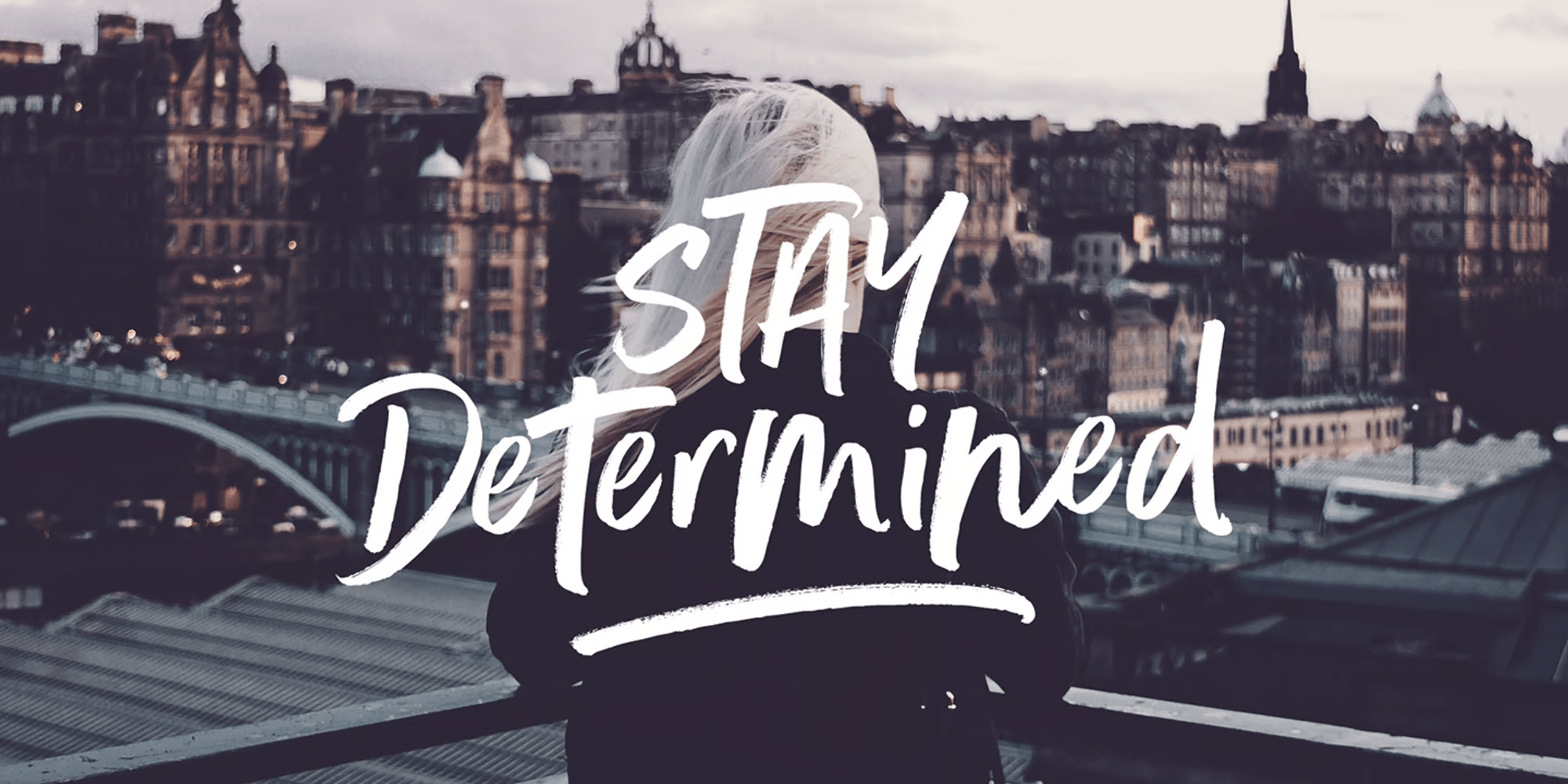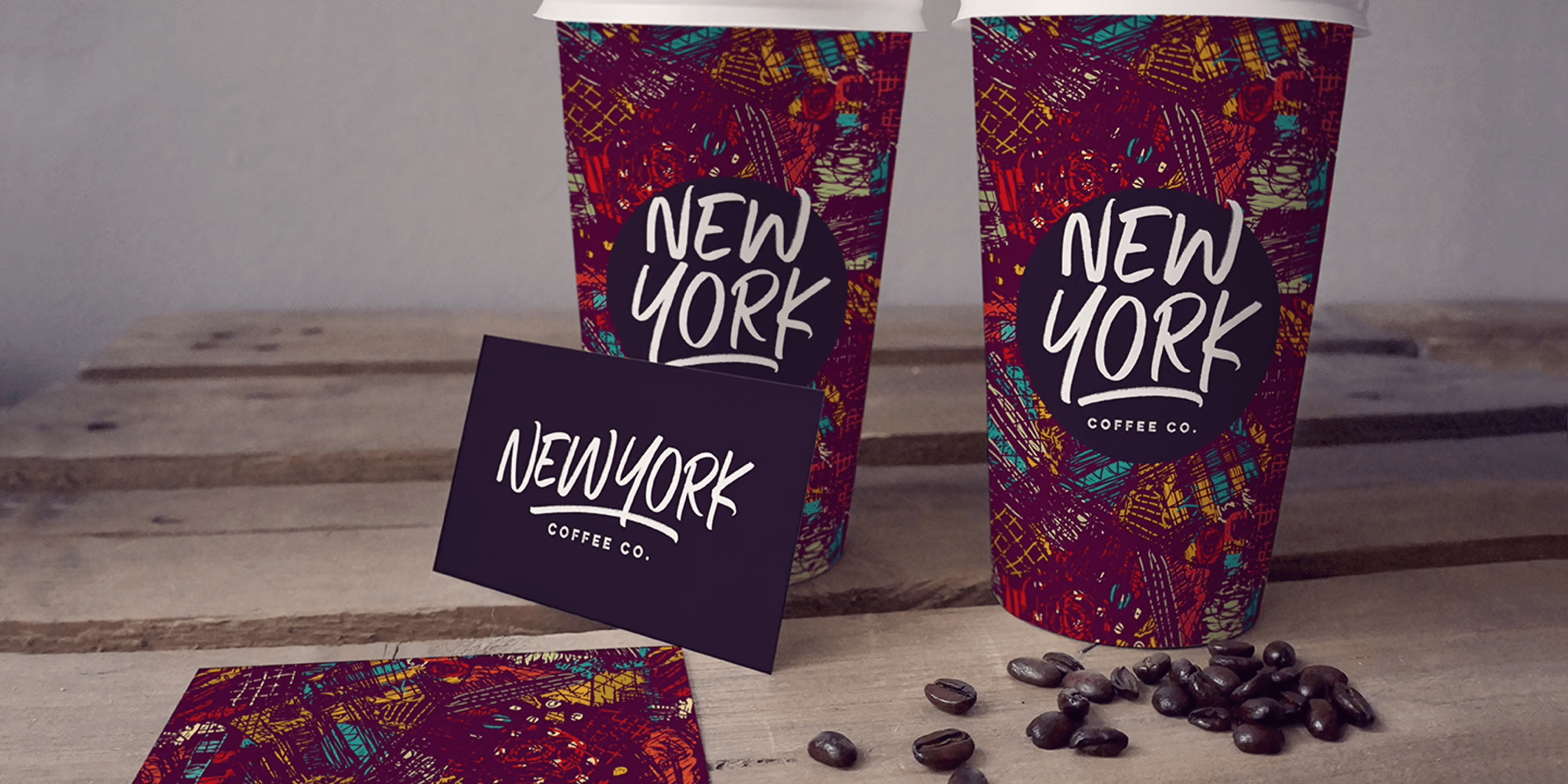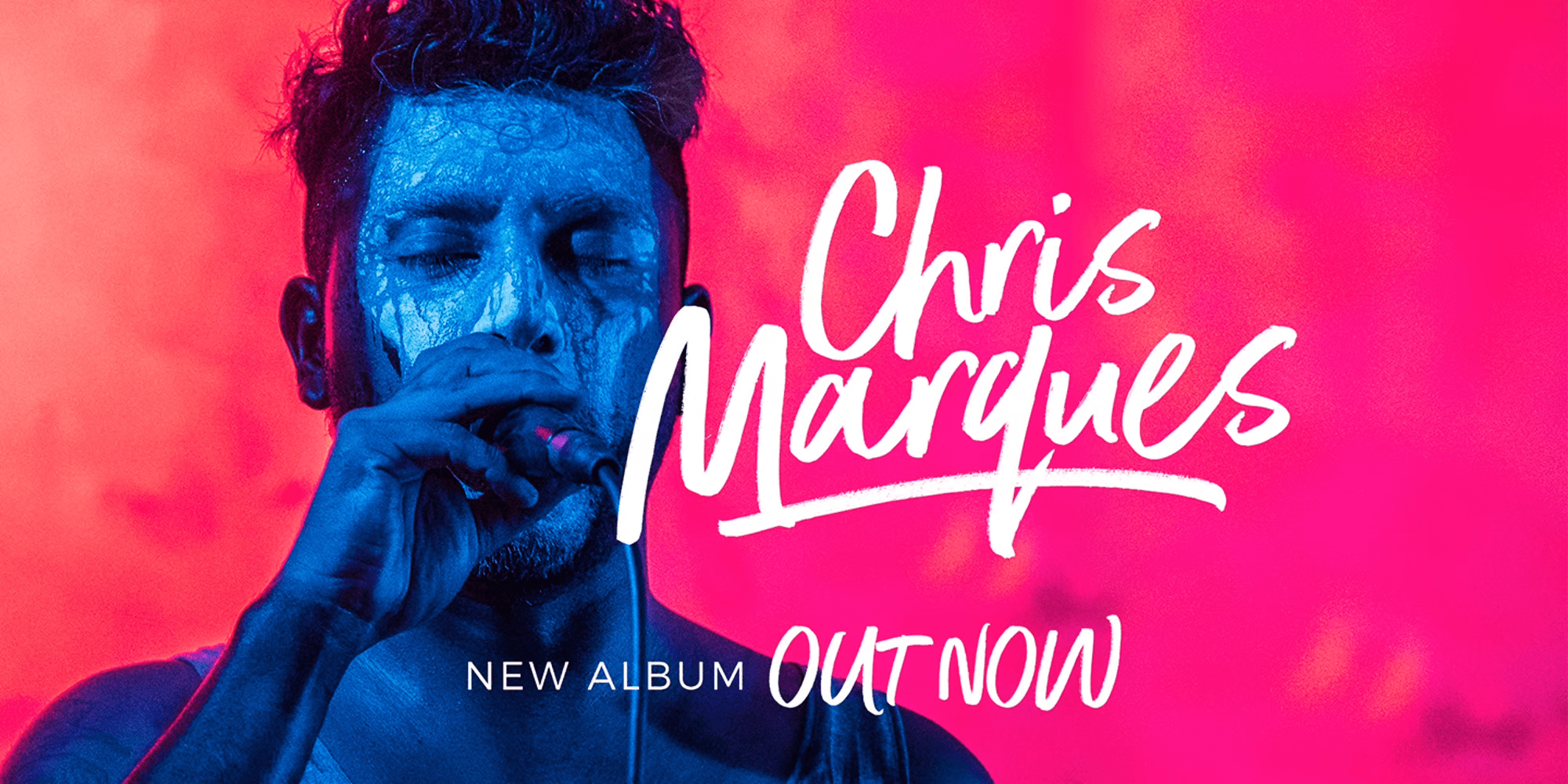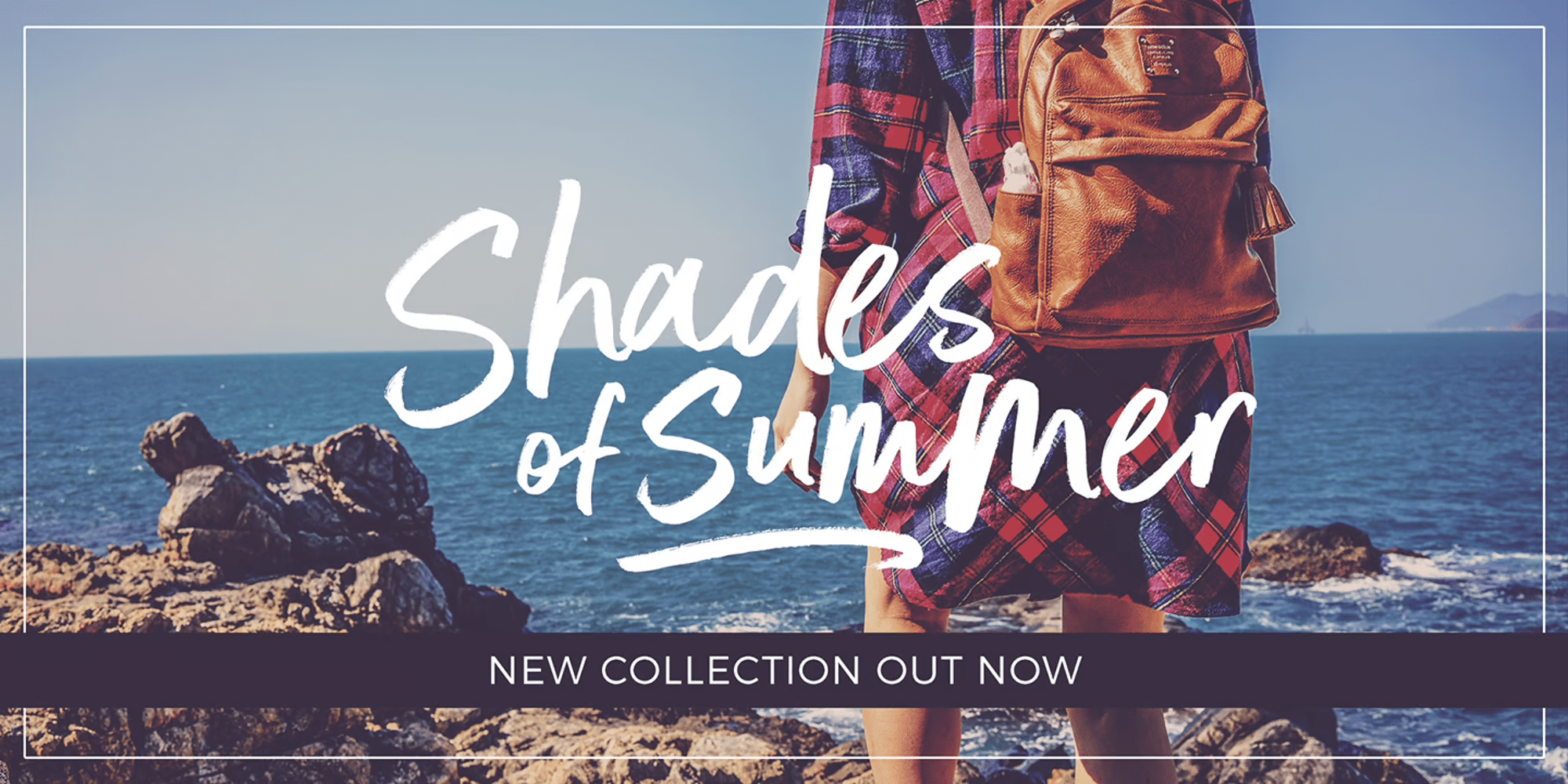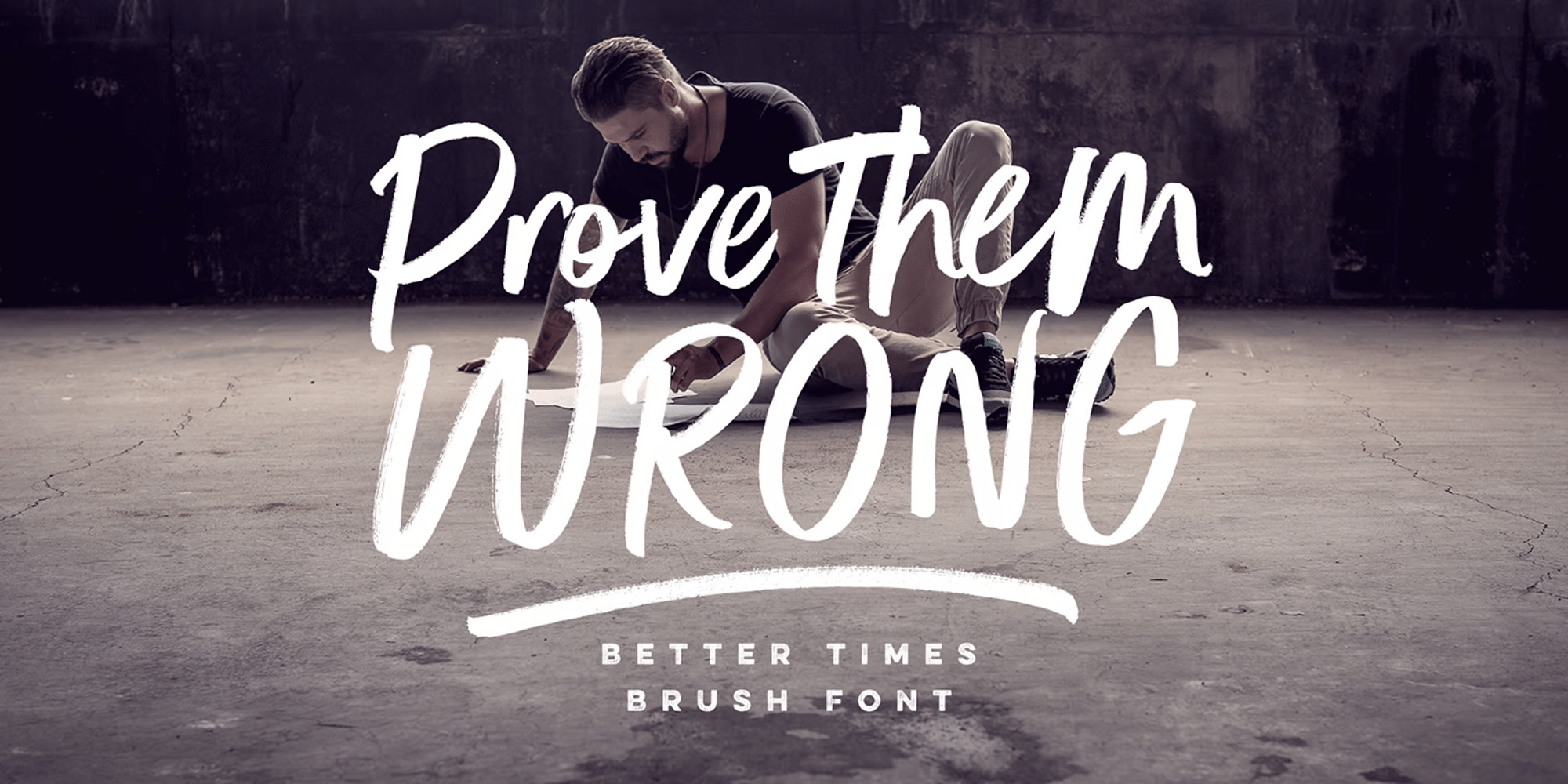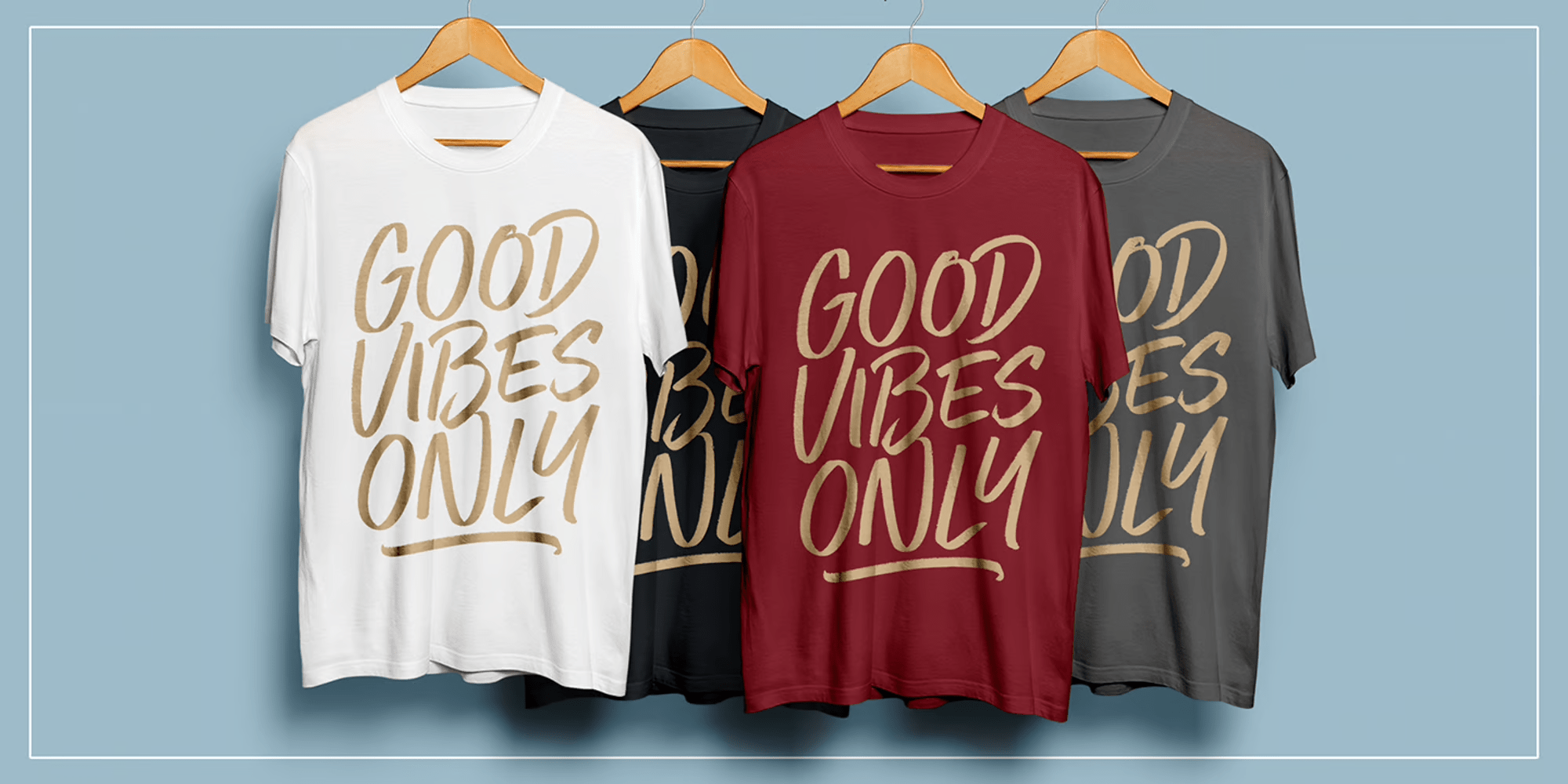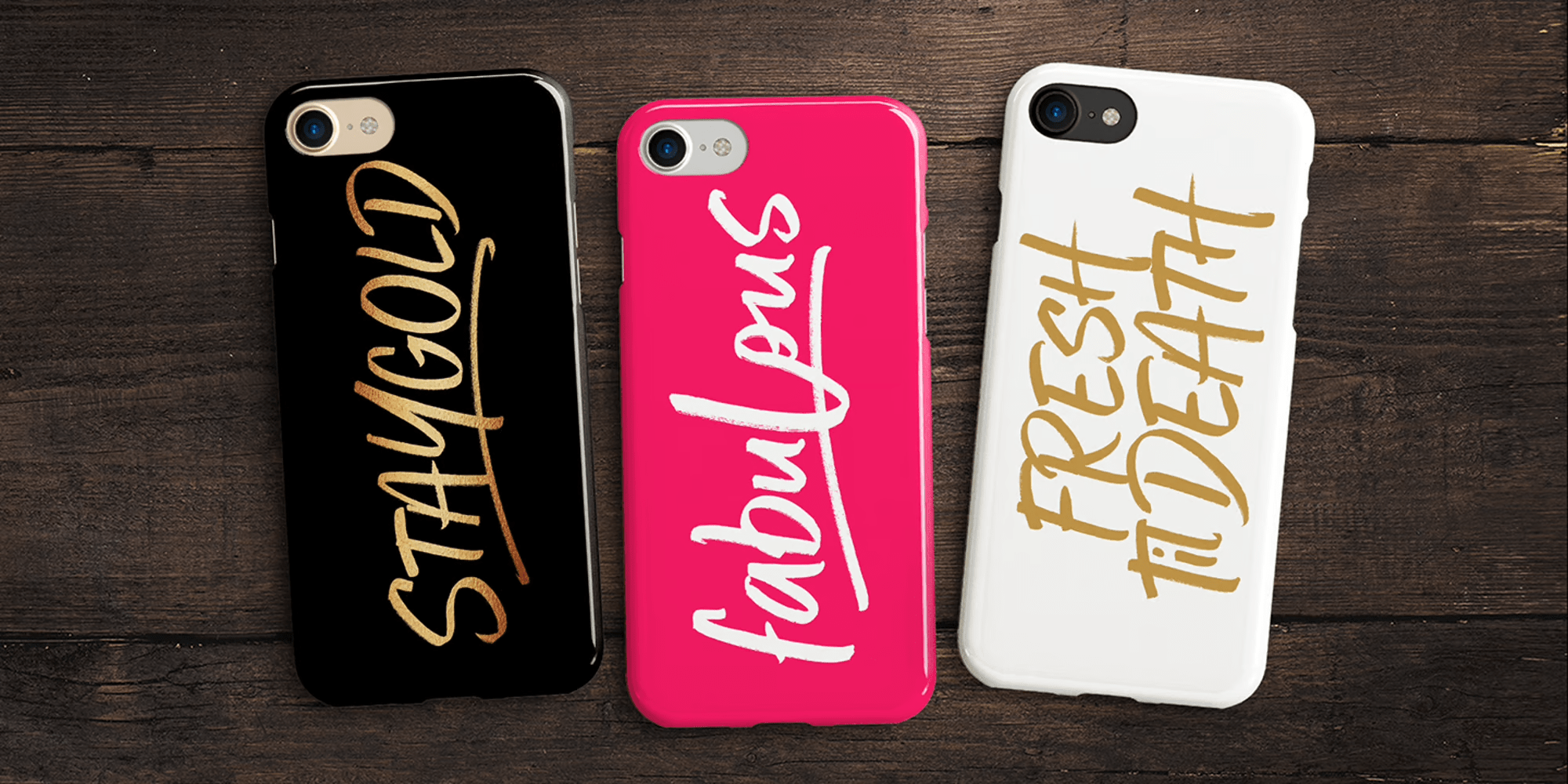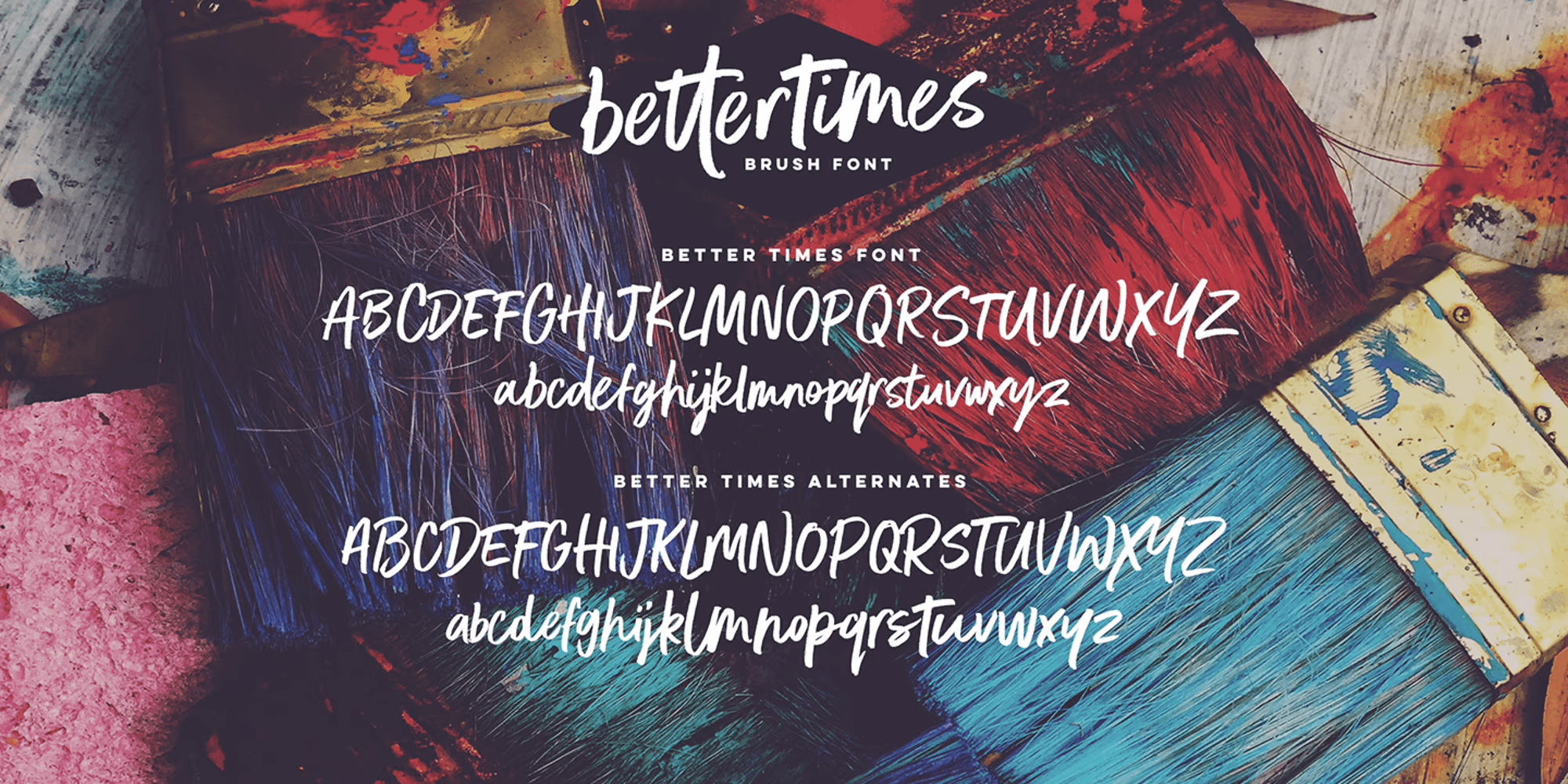
Better Times
Buy NowIntroducing Better Times, a handmade brush font! This bold, free-flowing and confident brush font is designed to be easily customisable with 2 sets of each letter and a bonus set of 20 swashes! Oh, and not to mention it looks great in both all-caps as well as lowercase - all of this together providing you with a huge range of layout options. Better Times is a brush font which you can use and enjoy again and again, for anything from promotional material and handwritten quotes, to product packaging, merchandise and branding projects.
The Better Times family consists of 3 fonts;
1. Better Times • A handwritten brush font containing upper & lowercase characters, numerals and a large range of punctuation.
2. Better Times Alt • This is a second version of Better Times, with a completely new set of lowercase and uppercase characters. If you wanted to avoid letters looking the same each time to recreate a custom-made style, or try a different word shape, simply switch to this font for an additional layout option.
3. Better Times Swash • A set of 20 hand-drawn swashes, the perfect finishing touch to underline your Better Times text. Simply install this as a separate font, select it from your font menu and type any A-U character to create a swash.